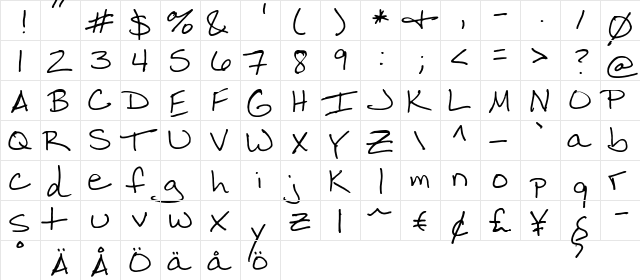
FG Sammy Regular Font Preview
FG Sammy Regular
FG Sammy Regular Font Details
Design Context for FG Sammy Typeface
FG Sammy is a composed and adaptable typeface that performs quietly and consistently across a wide range of design contexts.